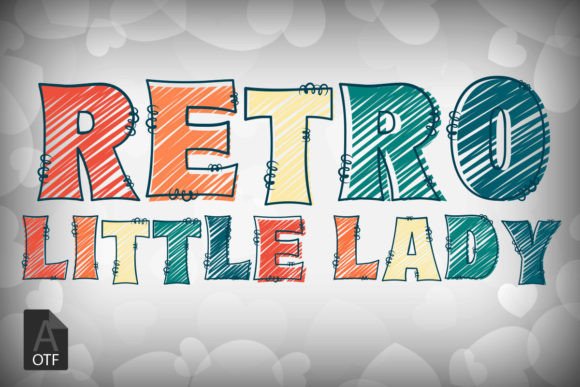
Introducing Retro Little Lady Font, the perfect font for fashion design. This display font, created by Little Lady Design, will bring a vibrant and lively energy to your projects. Retro Little Lady combines retro aesthetics with bold and bright colors, making it an eye-catching addition to any design.
This playful font is perfect for advertising, packaging, and web design. Its quirky details and energetic vibe evoke the spirit of the 1960s and 70s, making it perfect for projects that want to capture that era's excitement.
Retro Little Lady Font is ideal for fashion design projects, with its bold and unique style that will help your brand stand out. Its versatility allows it to be used in a wide range of design applications, including social media graphics, invitations, and editorial layouts.
Don't settle for a boring font when you can use Retro Little Lady to elevate your design. Let it bring a burst of energy and fun to your next project.